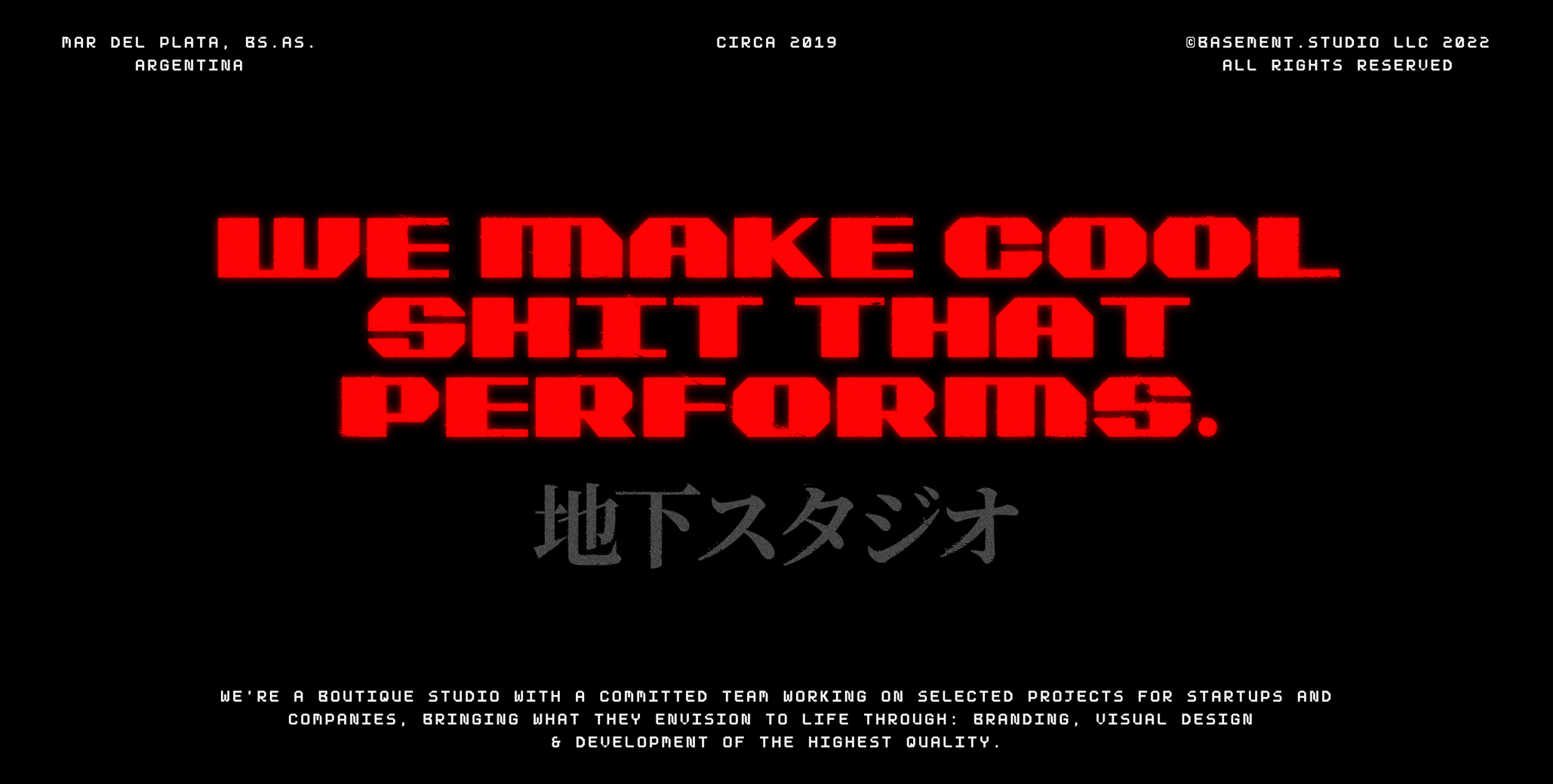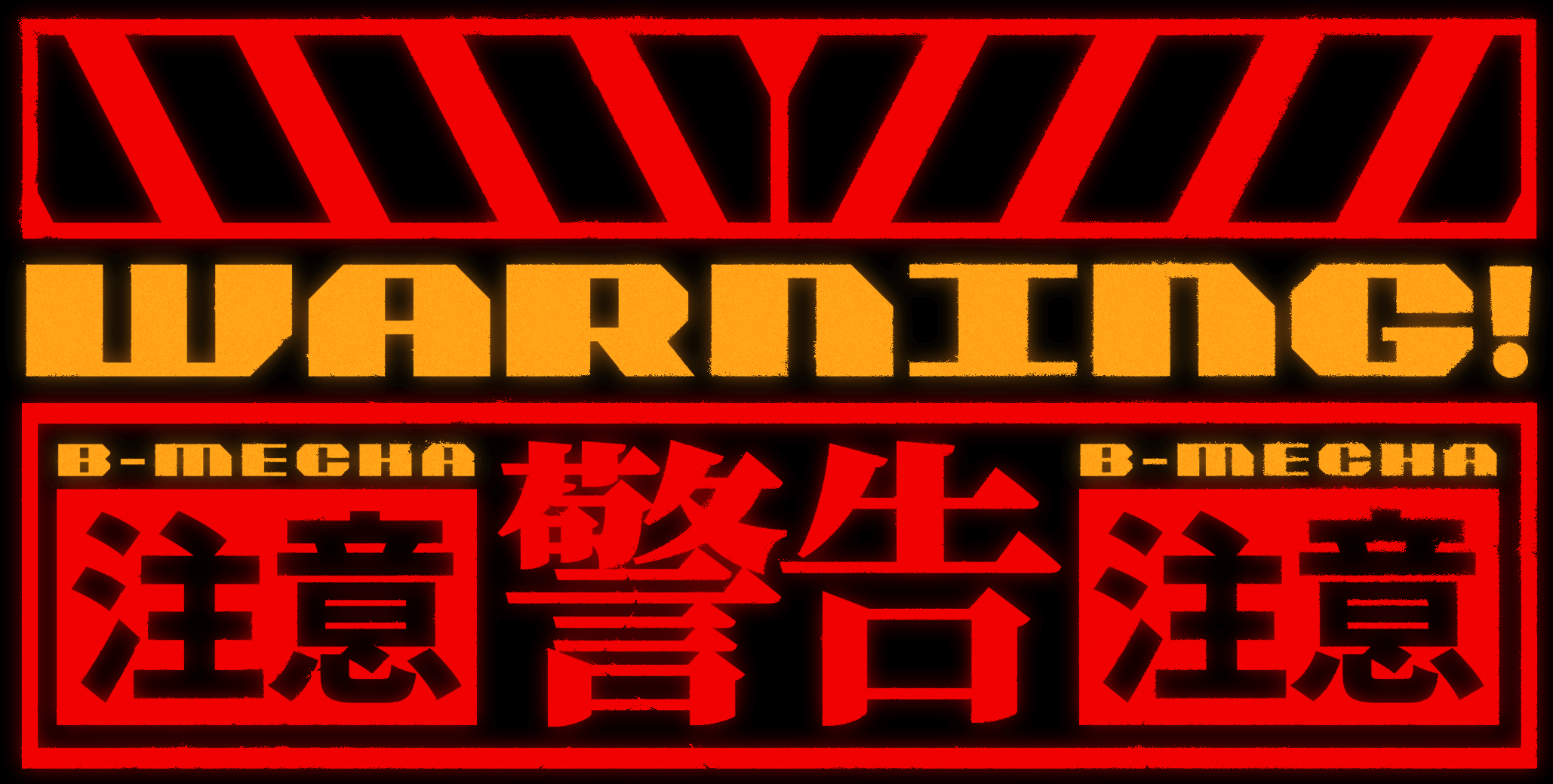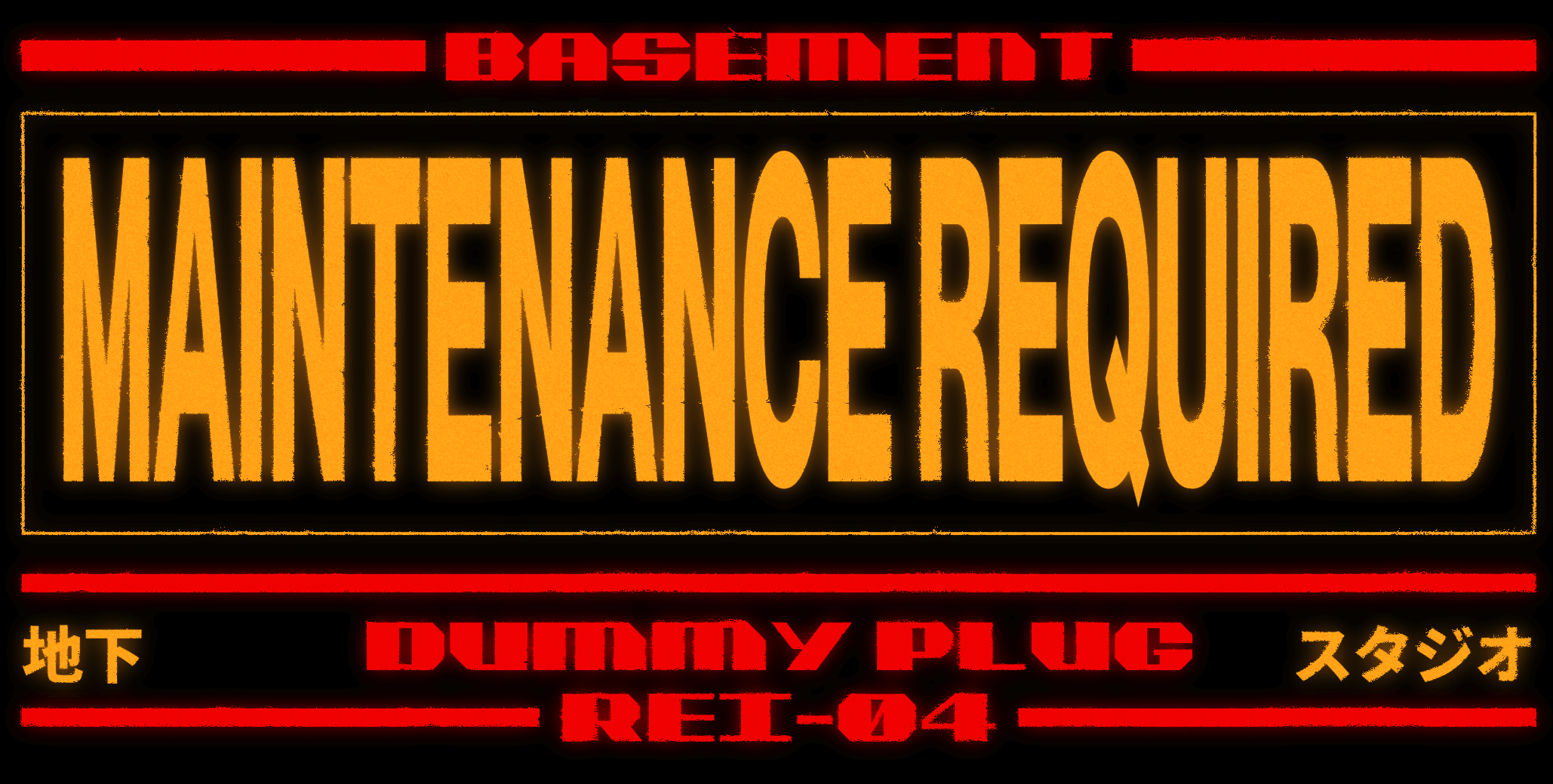
B–MECHA is a solid and bold display typeface inspired by Japanese Mecha culture. 見せてやる… 人類の力!
B-Mecha
DesignerMateo Zaragoza
Publisherbasement.studio
DescriptionB–MECHA is a solid and bold display typeface inspired by Japanese Mecha culture.